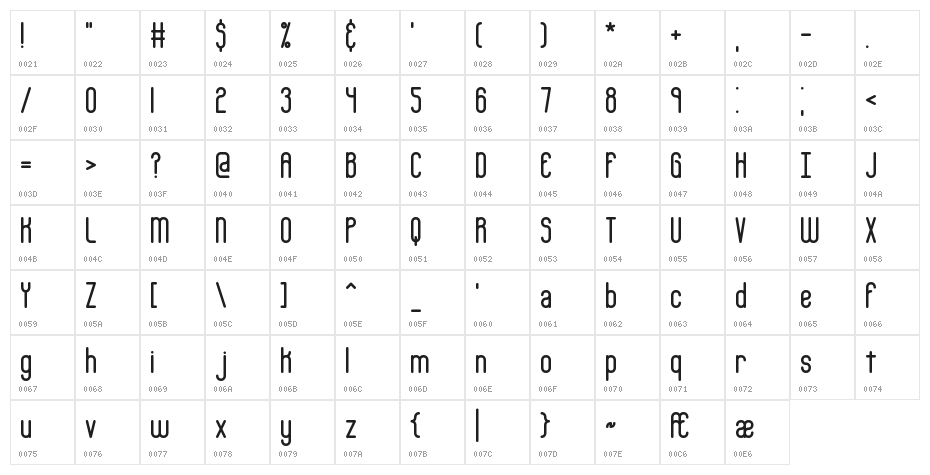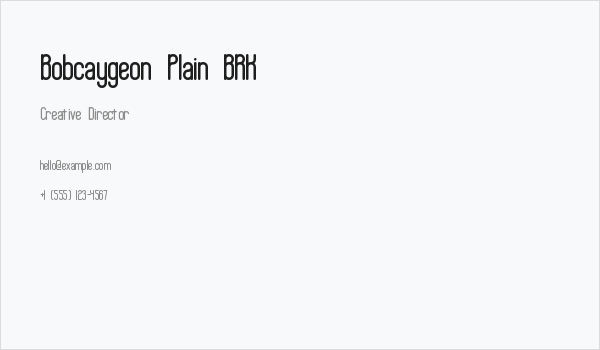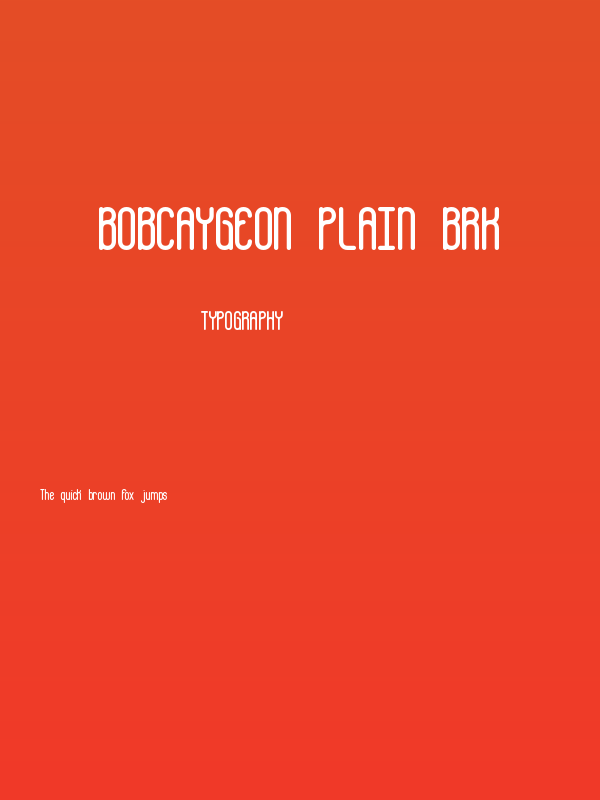
Bobcaygeon Plain BRK Font
Bobcaygeon Plain BRK Description
This font features a modern and clean design with rounded edges, giving it a friendly and approachable appearance. The characters are uniformly structured with consistent stroke widths, creating a harmonious and balanced look. The uppercase and lowercase letters maintain a similar height, enhancing readability. The numerals and special characters are designed to match the overall style, ensuring a cohesive visual experience. This font's simplicity and clarity make it versatile for various design applications.
| Proposed Projects | Ideal for branding, packaging, web design, and advertising where a friendly and modern aesthetic is desired. |